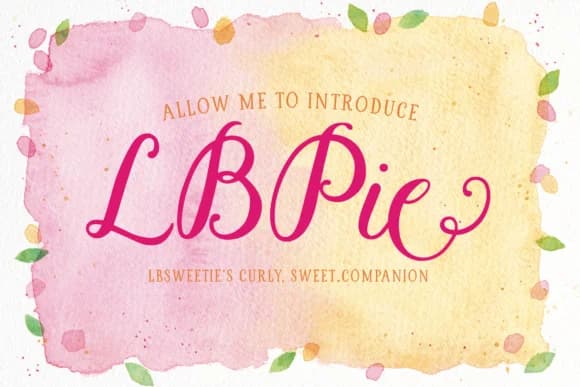
1 / 4About LBPie Font
LBPie by Laura Bolter Design is a hand-lettered script featuring a sweet, flowing style that authentically captures the charm of connected calligraphy. The font's distinctly curly personality and natural rhythm make it an excellent choice for creating wedding stationery, from formal invitation suites and personalized thank-you cards to elegant save-the-date announcements that need genuine personal warmth. It works beautifully for branding small creative businesses, hand-lettering product labels for artisanal goods, designing personalized greeting cards that truly stand out, and creating custom menu cards for special events and celebrations.
The connected letterforms flow gracefully across the page, creating an elegant yet approachable aesthetic that appeals to both professional designers and DIY enthusiasts looking for authentic, handmade character. LBPie shines when applied to custom journaling covers, personalized monogram designs, and social media graphics that require a heartfelt, handmade quality and emotional connection. The script's natural character makes it particularly ideal for scrapbooking embellishments, personalized gift tags, decorative text elements, and any paper-based project needing visual warmth and genuine interest. Whether you're creating engagement announcements, baby shower invitations, hand-lettered gift wrapping, specialty stationery items, or branded packaging materials for your business, this script delivers authentic charm and visual impact.
LBPie Font is a script font that shines as a display or heading face. Pair it with a clean sans-serif or serif font for body text β the contrast creates a clear hierarchy while the two styles stay balanced and easy to read.
LBPie Font